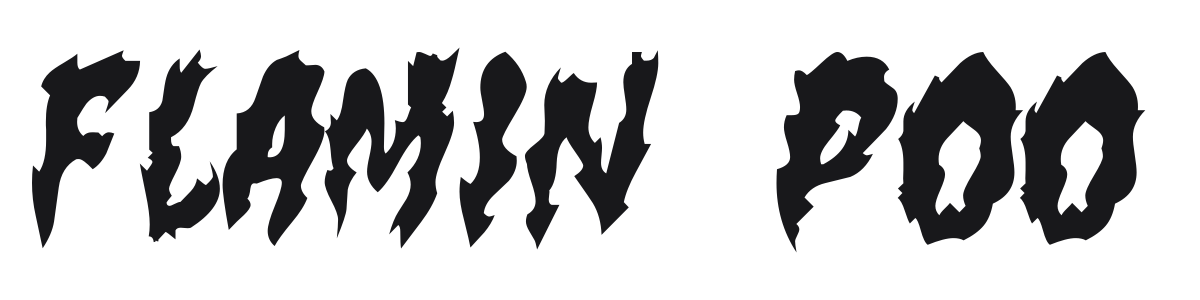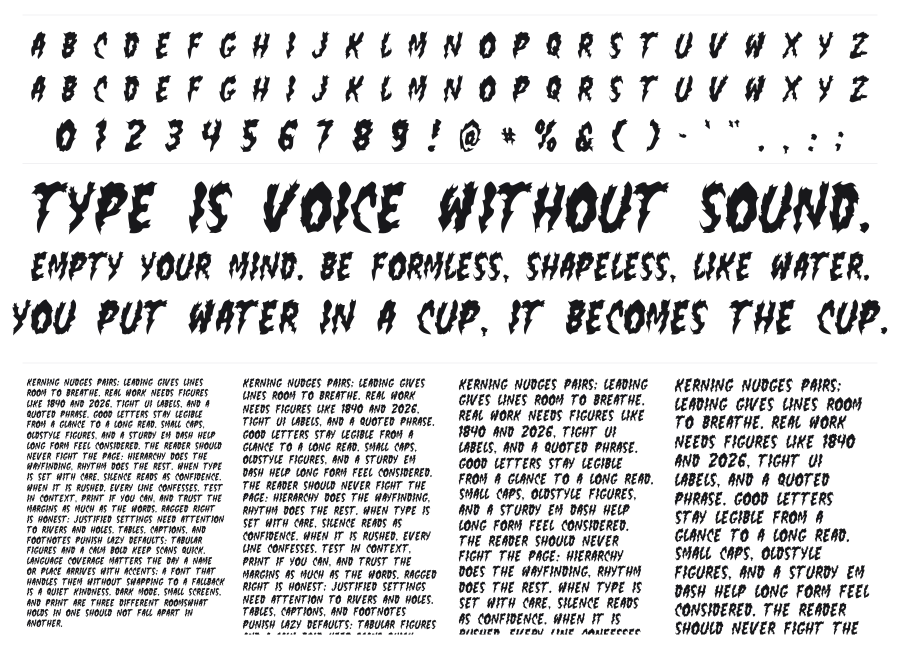
Flamin Poo
Flamin Poo is a heavy, distressed display font with jagged, flame-scorched edges and a bold italic stance. Every character looks like it was dragged through fire, with wild protrusions and a rough texture that makes it unmistakably loud. Built for posters, band logos, and anything that needs to feel dangerous.